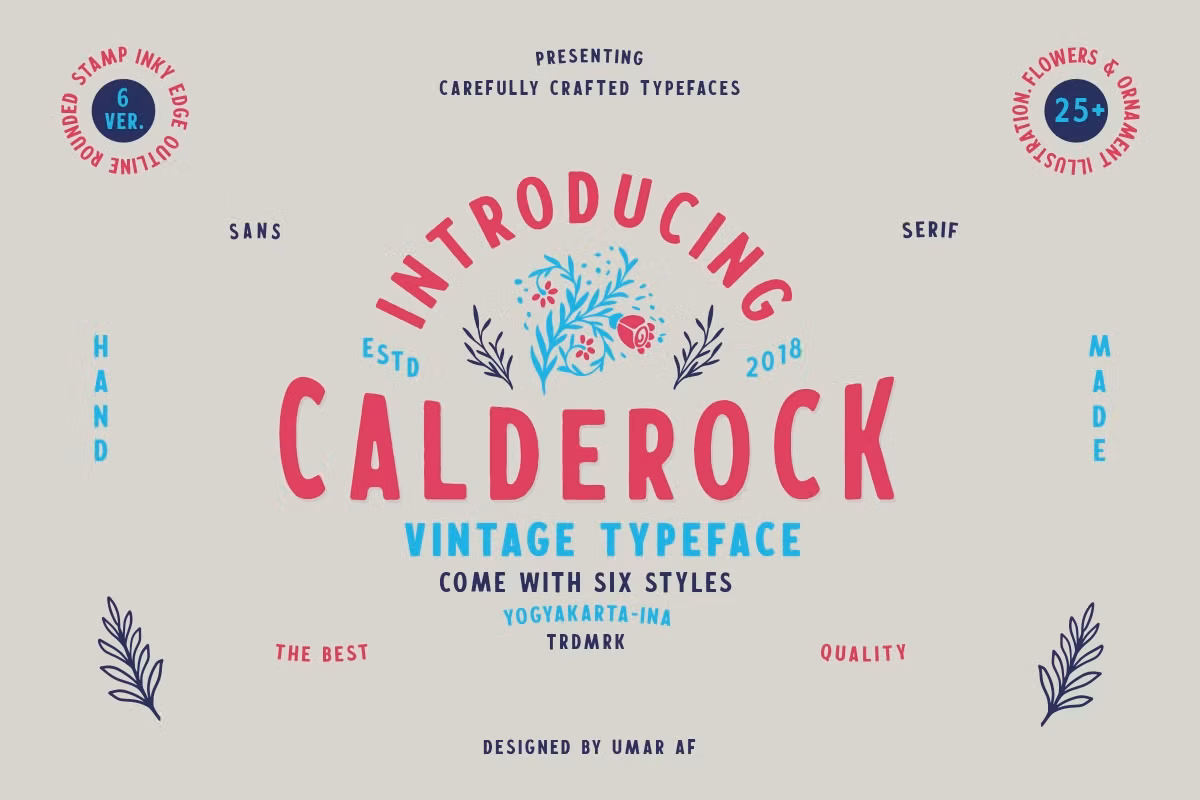
Calderock Typeface + Extras Free Download is a stylish and bold typeface collection designed for a range of creative projects. With its unique letterforms and strong presence, Calderock is perfect for logo design, branding, posters, packaging, and any project that requires a distinctive, modern touch.
The collection includes additional design extras that complement the typeface, allowing for further creative customization. Whether you're designing for a trendy brand, creating artwork for promotional materials, or adding unique typography to your digital designs, Calderock gives you the tools to elevate your work.